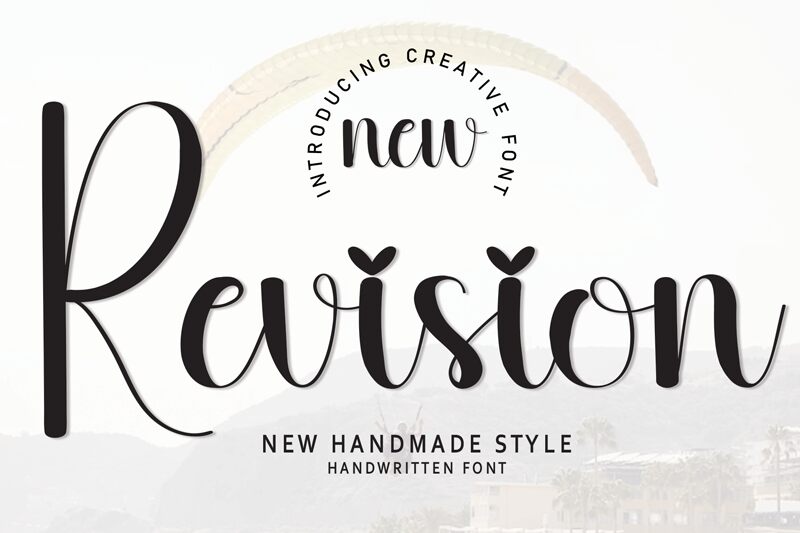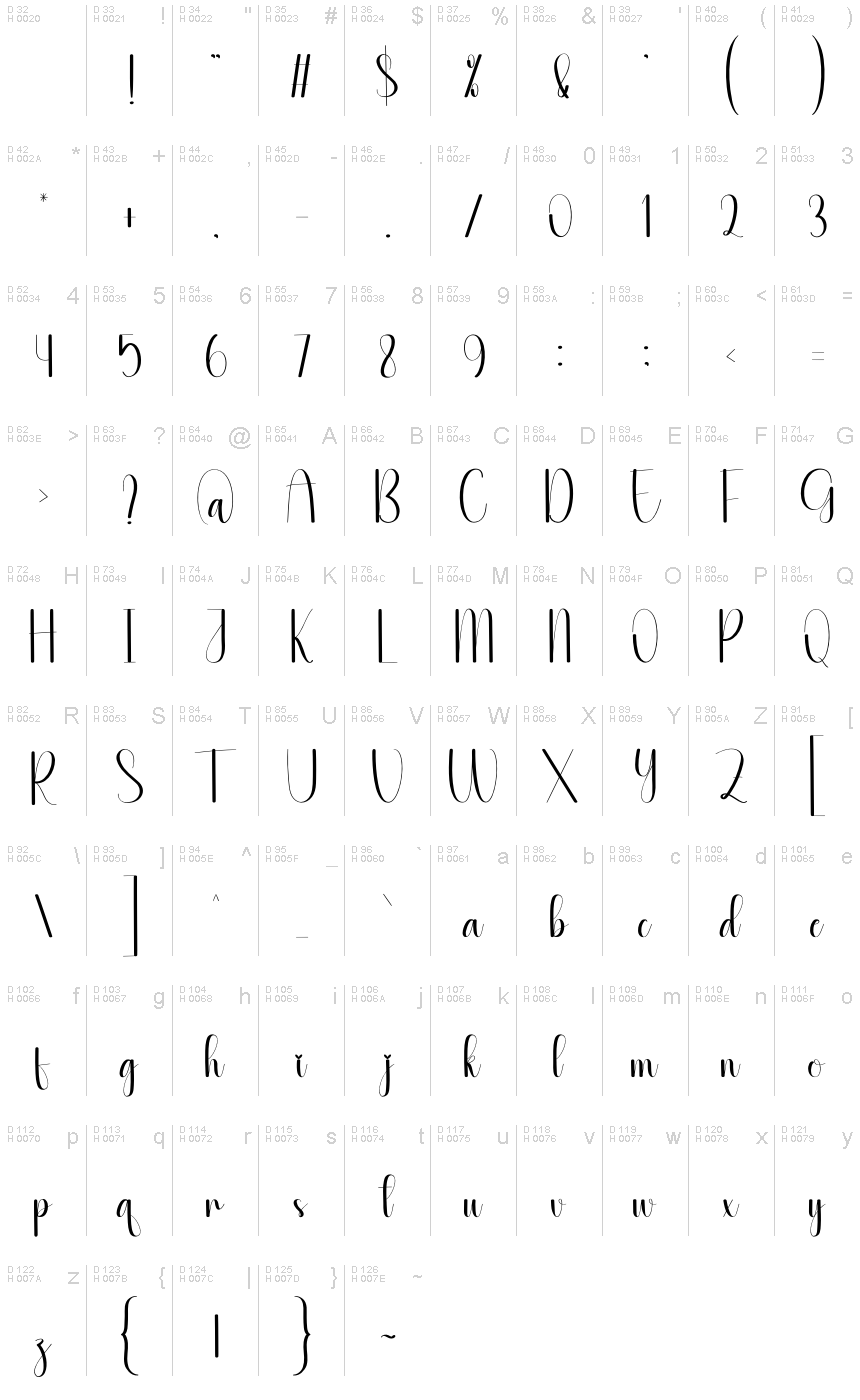
Revision
Revision font, crafted by Scratchones, exudes a charming handwritten quality that invites a sense of warmth and personality. Its flowing lines and playful curves create an engaging visual rhythm, making it ideal for both casual and artistic expressions. The inviting lightness of the characters enhances its whimsical nature, while select exaggerated flourishes add an element of sophistication.
With its distinctively expressive style, Revision is perfect for branding projects seeking a personal touch or creative endeavors such as invitations and social media graphics. Its versatility allows it to shine in both digital and print applications, effortlessly elevating designs while maintaining an approachable feel. This font not only conveys messages but also evokes emotions, making it a delightful choice for any design context that requires character and charm.